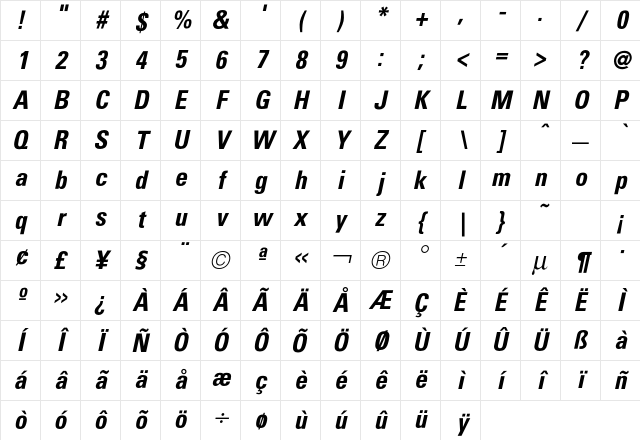
Uniform CondBoldOblique
Style: CondBoldOblique
Uniform Family
Uniform CondBoldOblique
Uniform CondBoldOblique Font Preview
Uniform CondBoldOblique Uppercase Preview
Uniform CondBoldOblique Lowercase Preview
Uniform CondBoldOblique Numeric Preview
Uniform CondBoldOblique Character Map
Complete Uniform CondBoldOblique glyph index. Displaying only characters natively supported by Uniform CondBoldOblique font.
Design Context for Uniform
Uniform is a composed and adaptable typeface that performs quietly and consistently across a wide range of design contexts. The slanted form adds forward momentum and visual energy. Its bold stroke weight gives it real presence on the page. Its narrow stance lets it pack a punch even in space-constrained designs.
Pro Tip: Use Uniform for emphasis, pull quotes, and subheadings where its slanted energy can add rhythm to the layout.